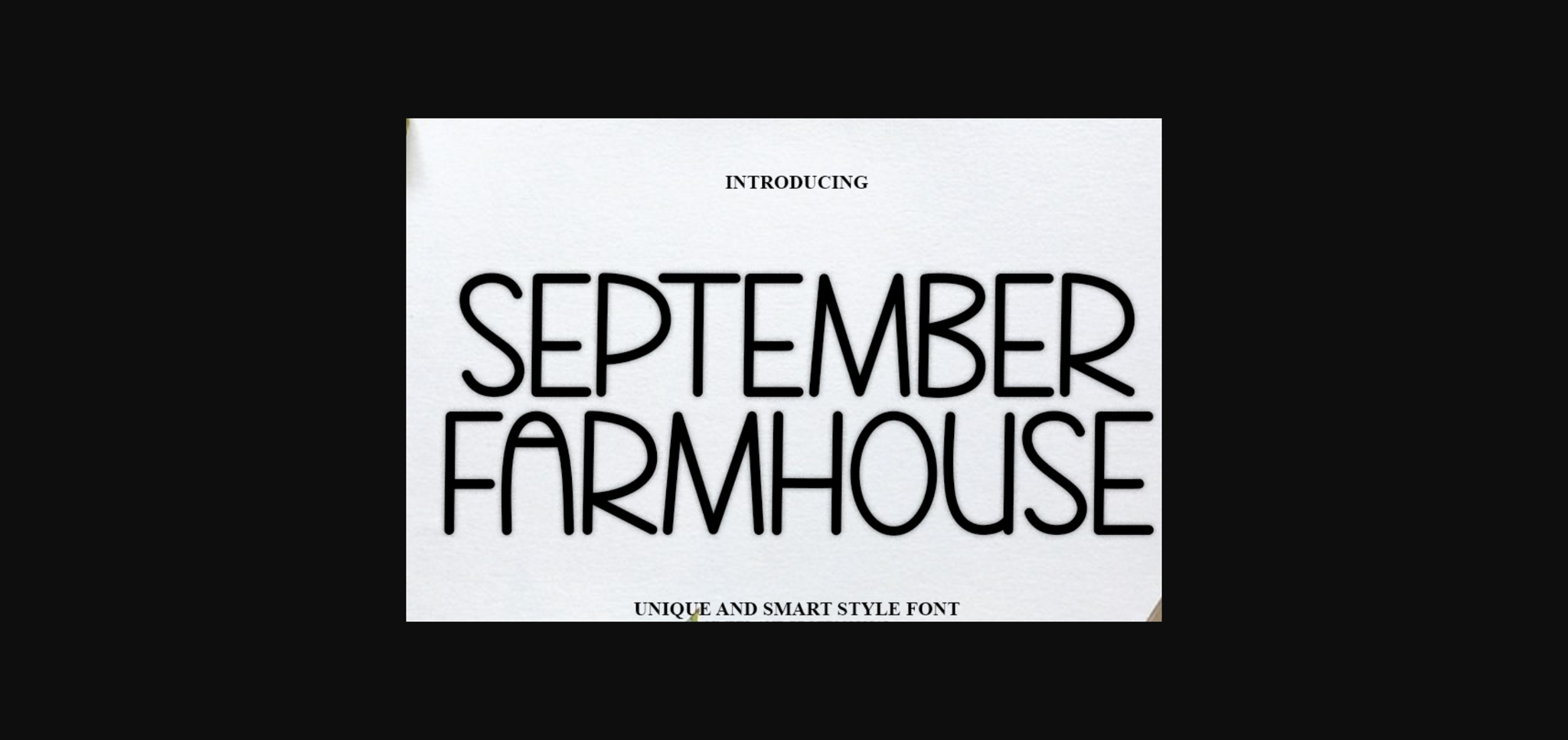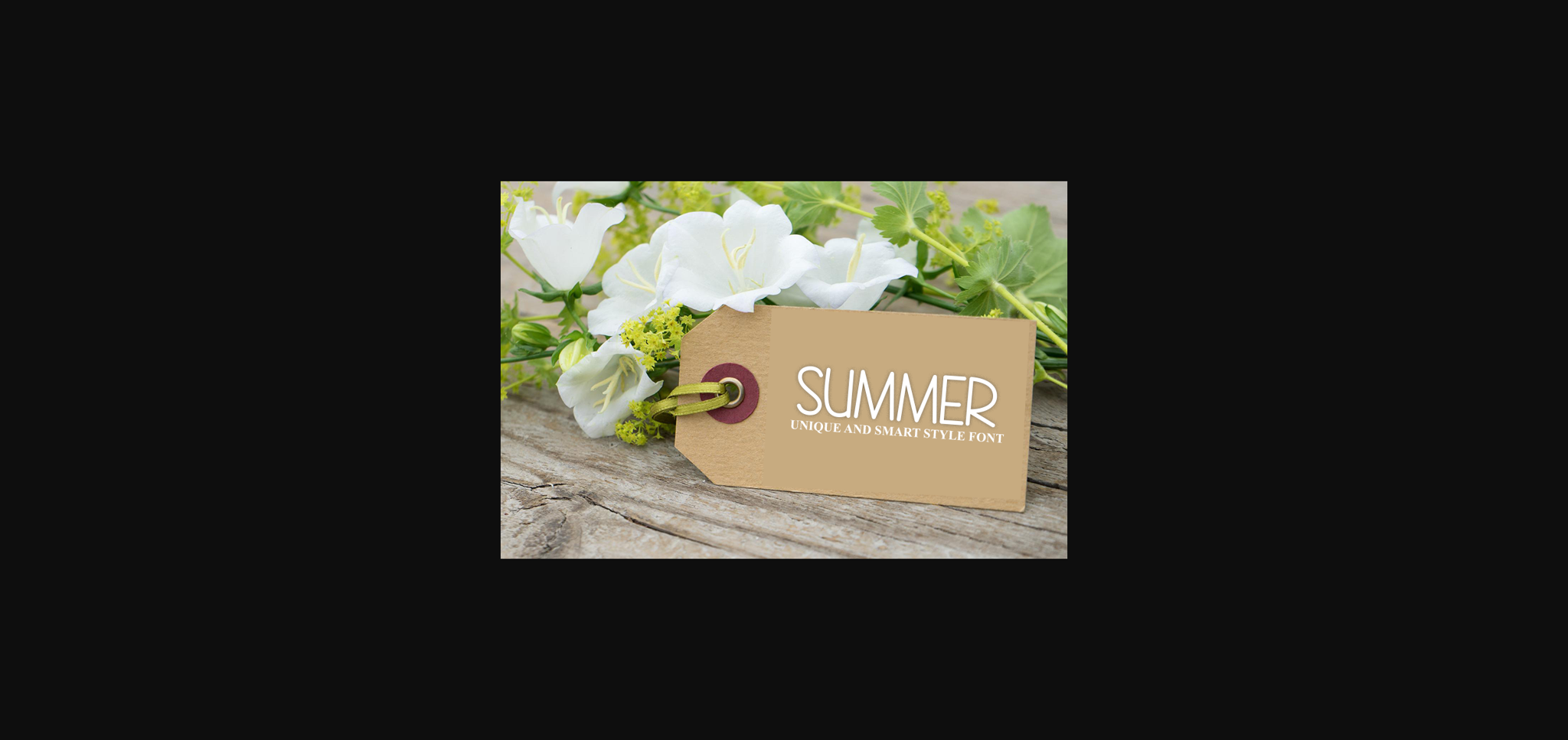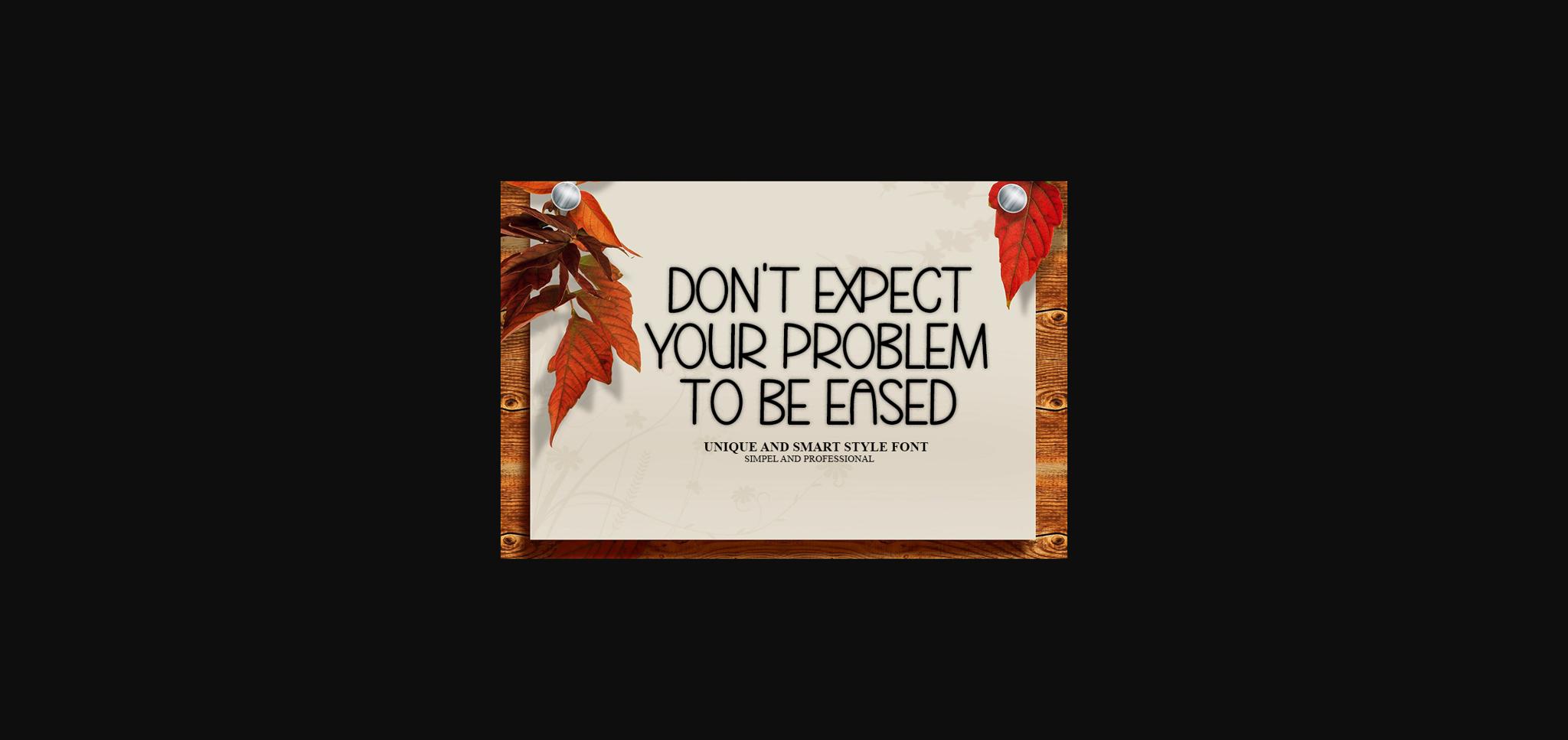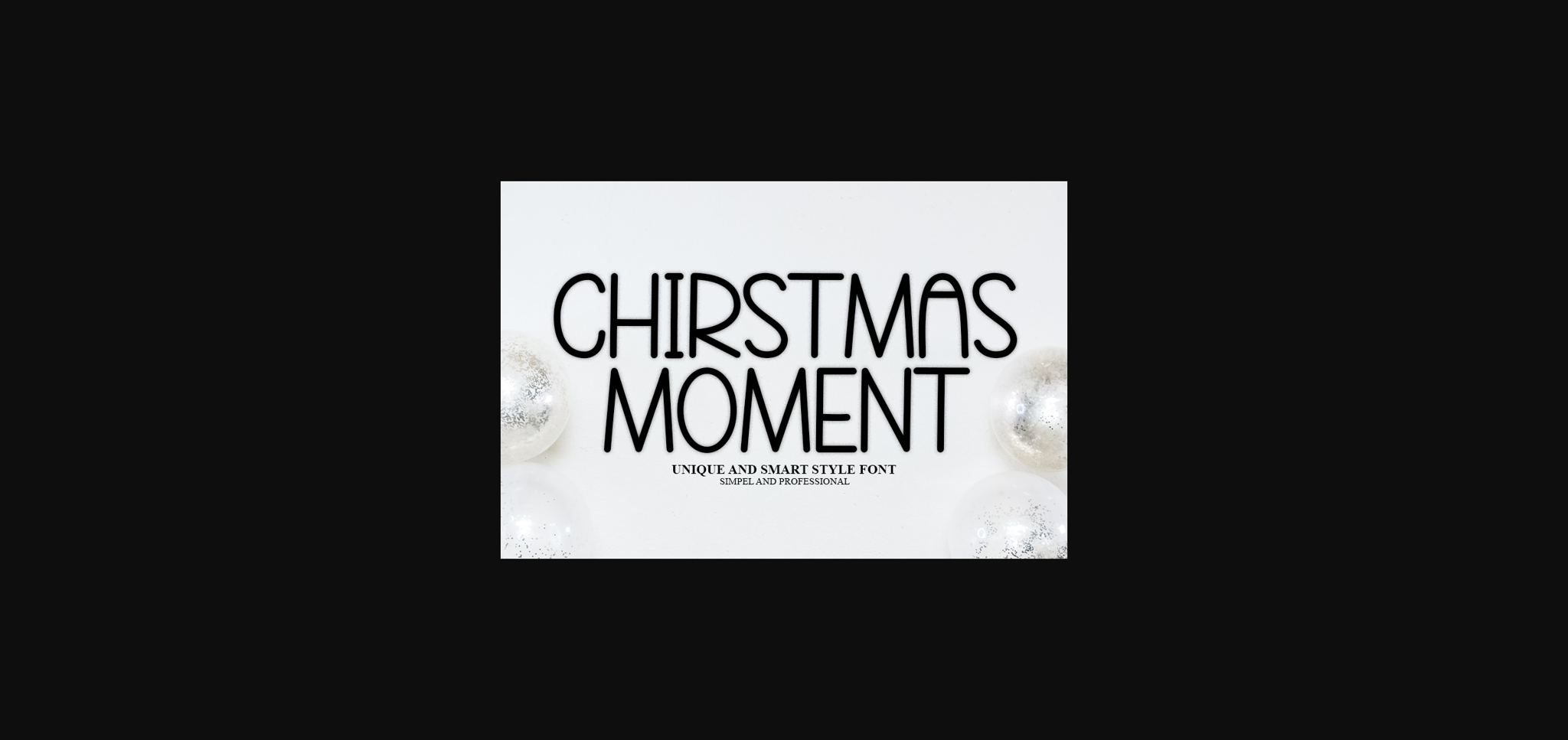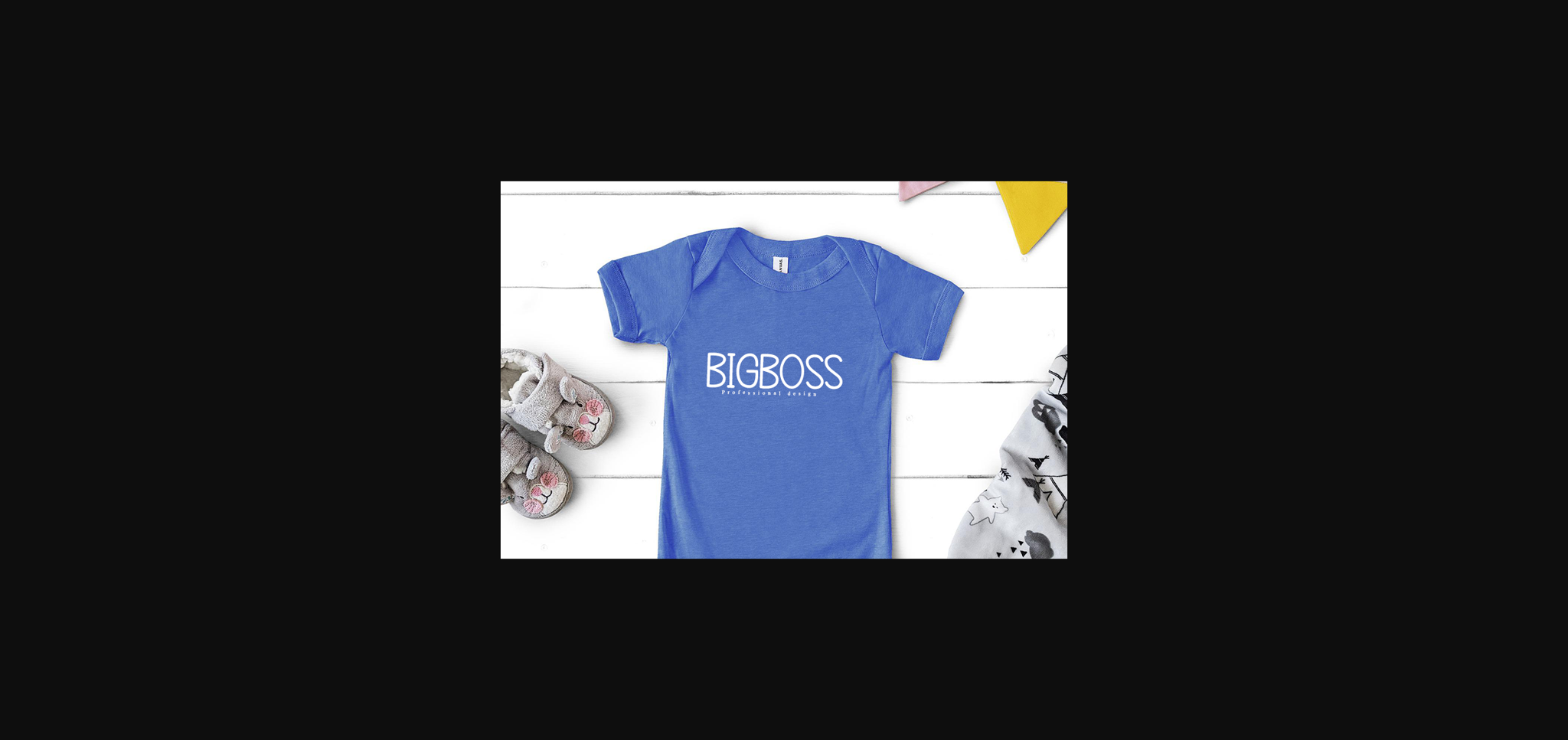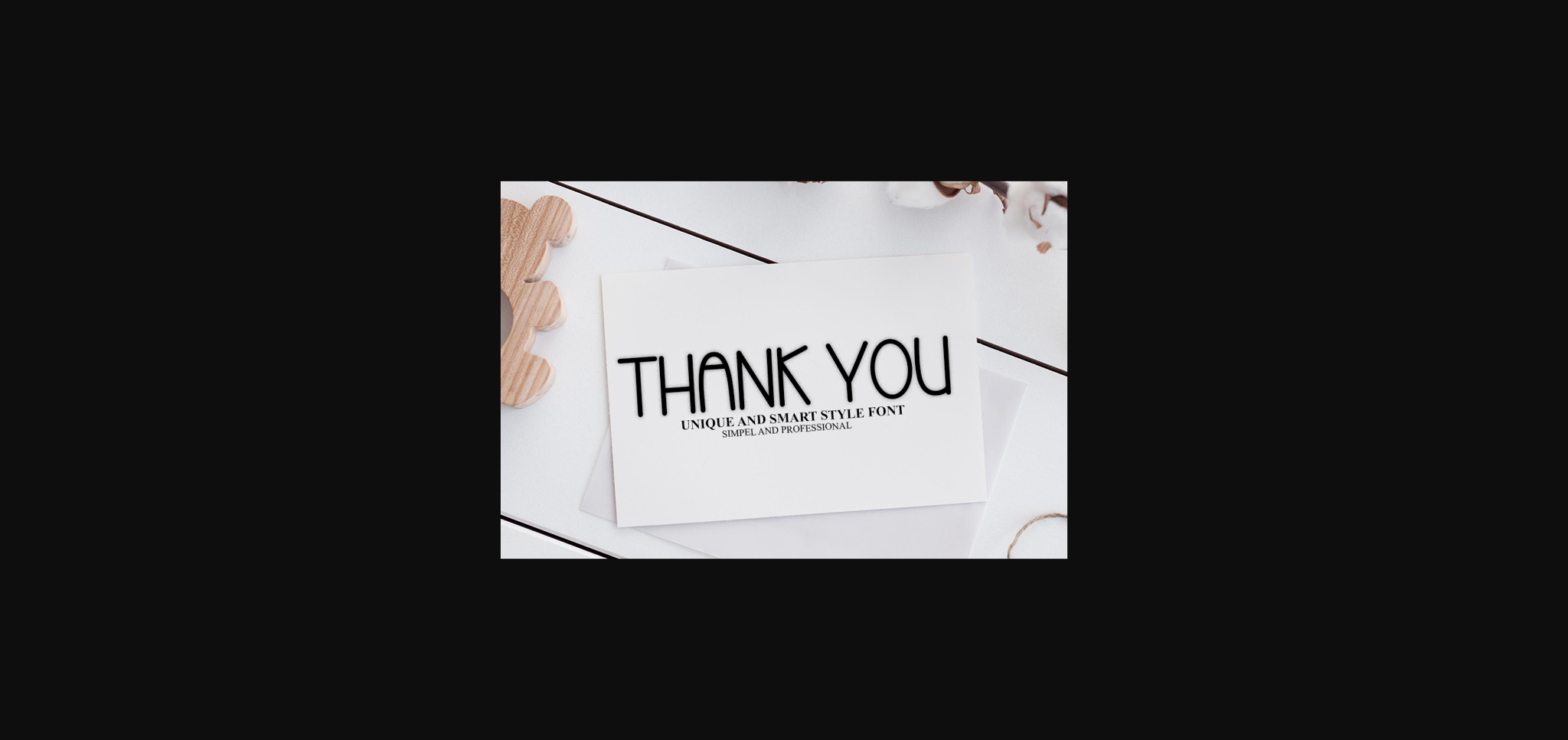
September Farmhouse Font
About September Farmhouse Font
September Farmhouse is a cool and modern sans-serif font. Whether you’re using it for crafts, digital design, presentations, or making greeting cards, this font has the potential to become your favorite go-to font, no matter the occasion.